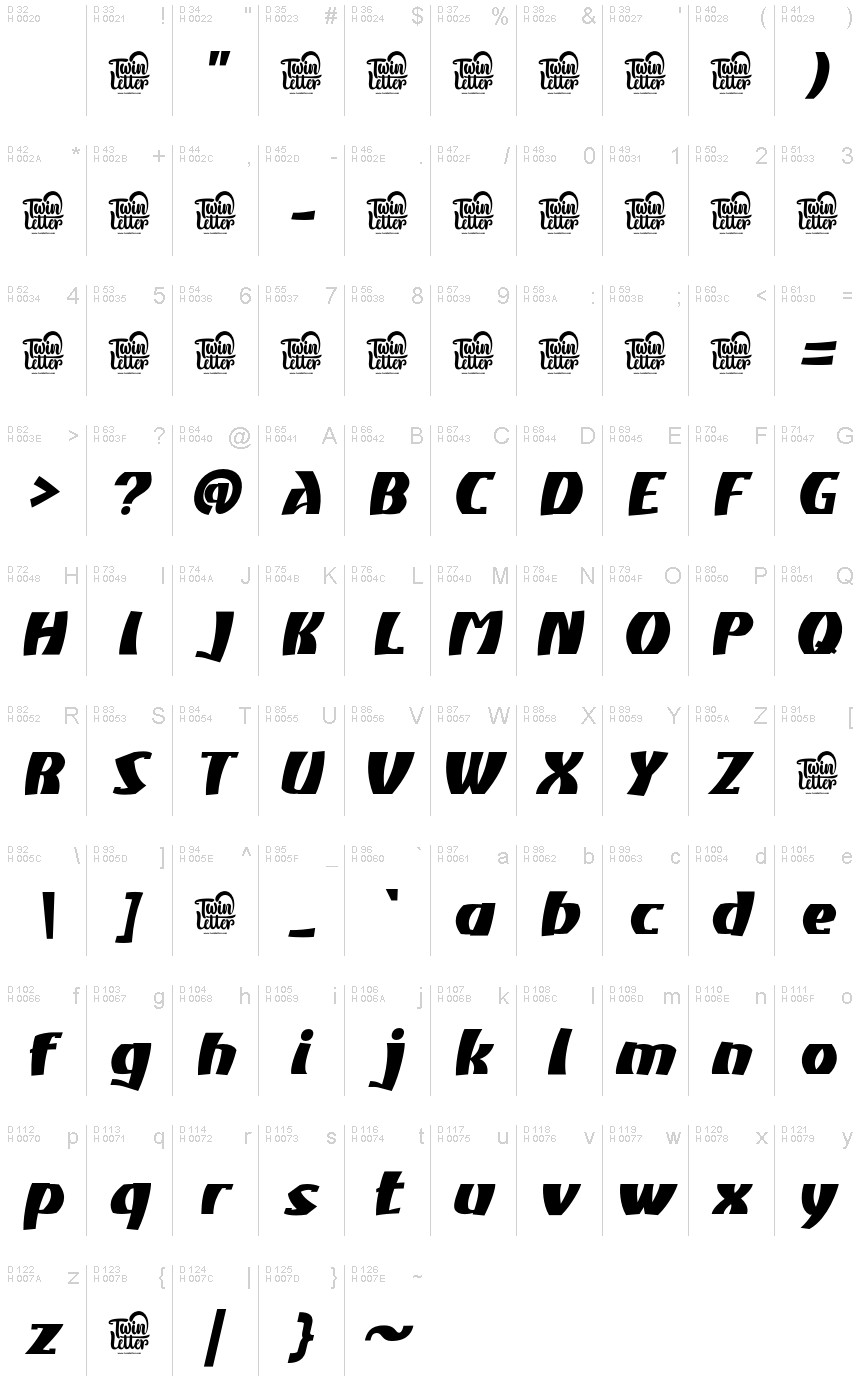
Atiku Black Slanted font, from the Atiku family by Twinletter, exudes bold sophistication and exoticism with its Japanese-inspired style. This unique typeface captivates viewers, instantly elevating brand perception. Tailored for the next generation, Atiku's striking design is perfect for impactful ads, social media posts, and creative projects. With 18 diverse styles and numerous OpenType features, it offers unmatched versatility to optimize any project effortlessly.